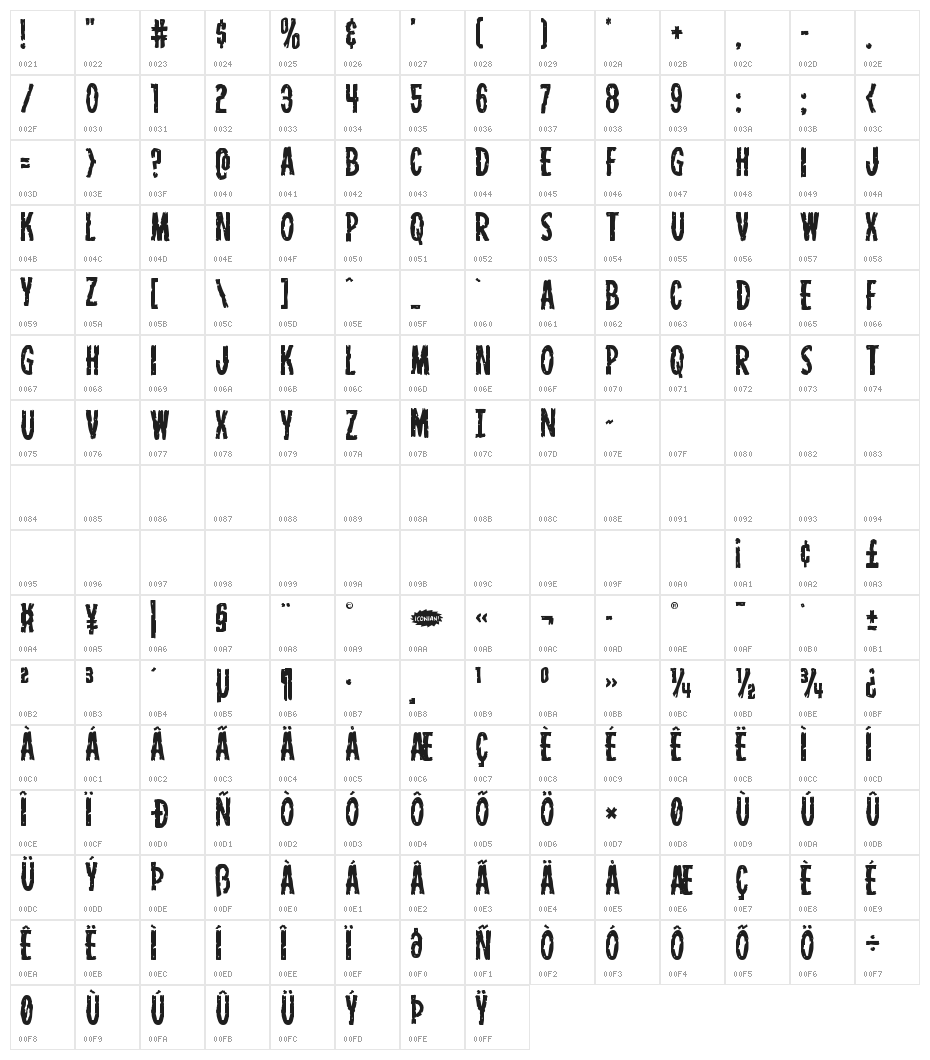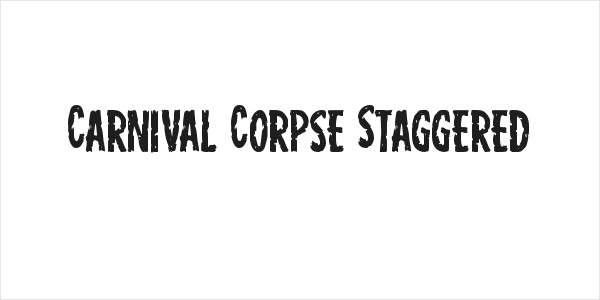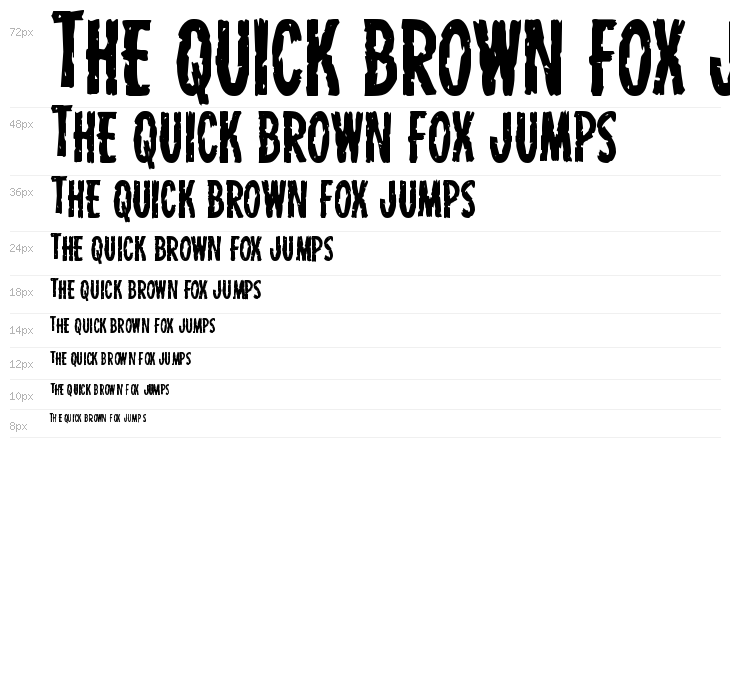
Carnival Corpse Staggered Font
Carnival Corpse Staggered Description
This font features a bold and rugged design with a distressed, grunge-like appearance. The characters are heavily textured, giving them a worn and weathered look, reminiscent of old carnival posters or horror-themed graphics. The uppercase and lowercase letters maintain a consistent style, with jagged edges and uneven strokes that add to the chaotic and eerie vibe. Numbers and special characters follow the same aesthetic, ensuring a cohesive look across all text elements. This font is ideal for projects that require a dramatic and eye-catching display, such as Halloween events, horror movie posters, or themed party invitations.
| Proposed Projects | Ideal for horror movie posters, Halloween event flyers, themed party invitations, and edgy graphic designs. |